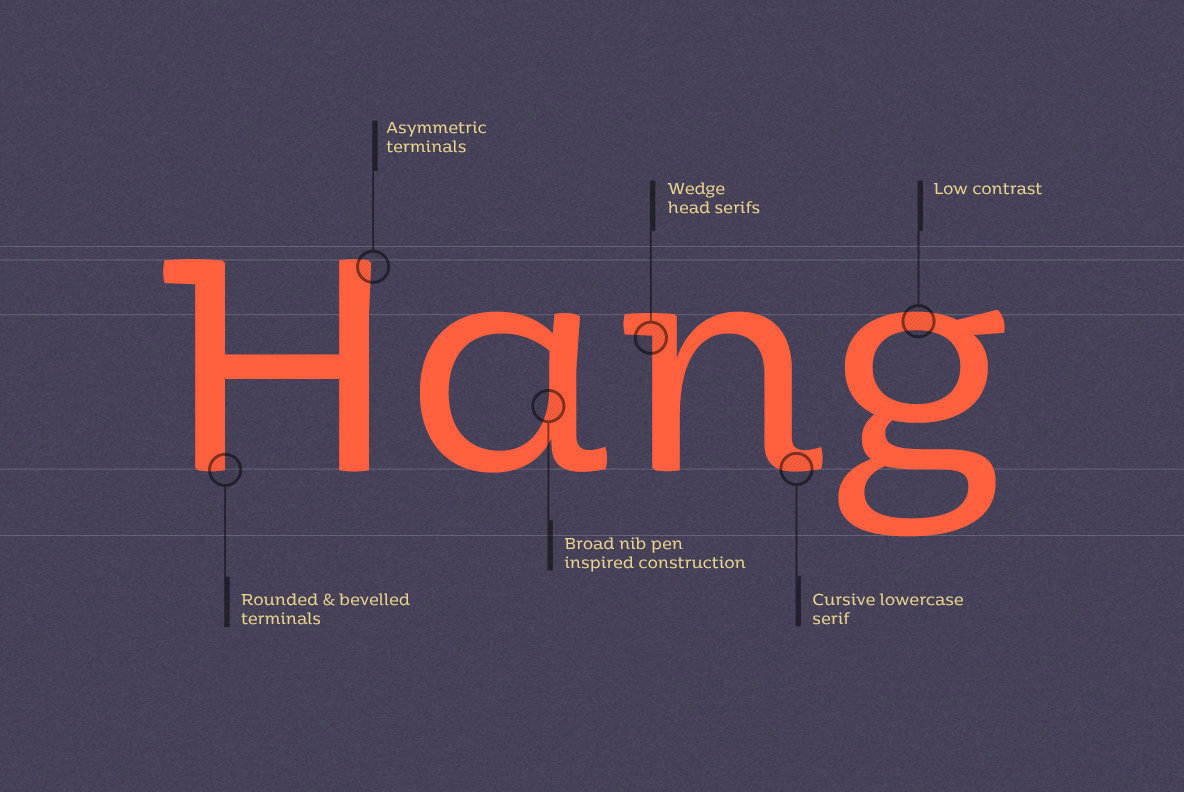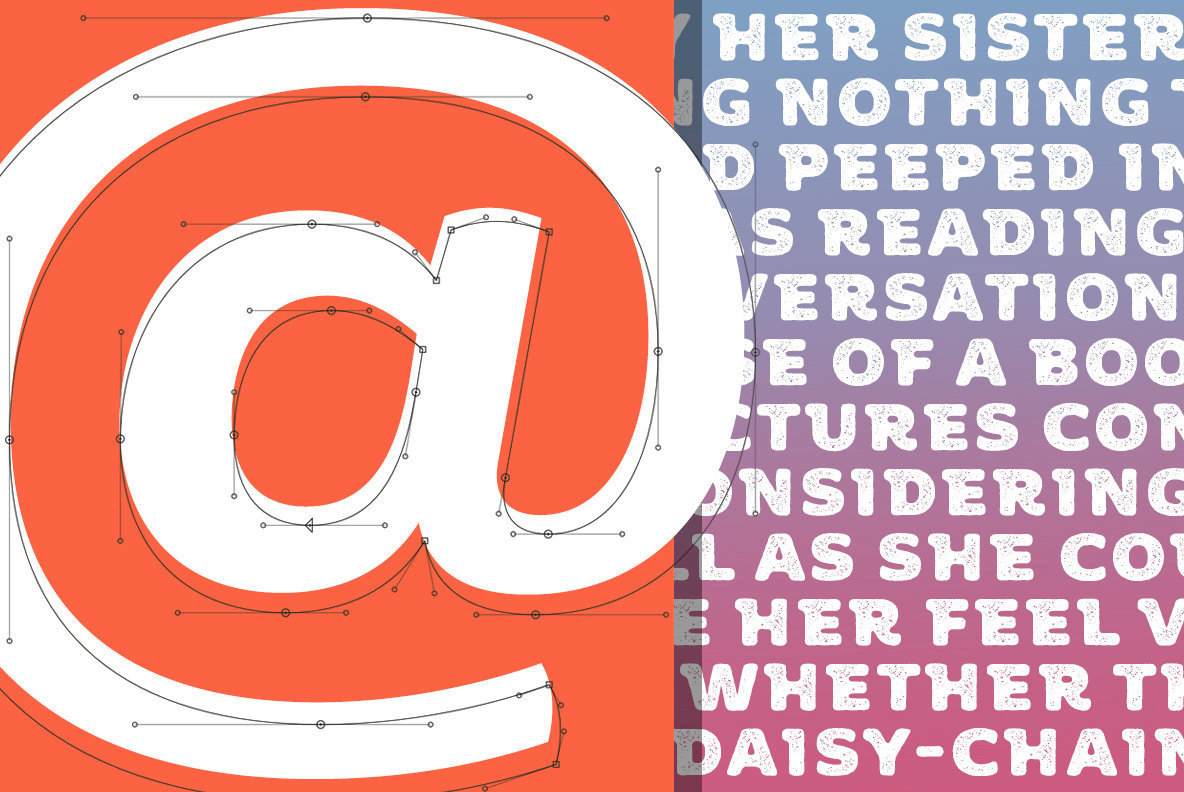
Moreno Font
Meet Moreno – a semi serif typeface full of personality and flavor. A display typeface in its nature Moreno is free and informal yet stable and trustworthy.
Moreno comes with extensive OpenType support - with its more than 15 Opentype features Moreno is giving you a great variety of stylistic alternatives as well as wide range of ligatures, tabular lining numerals, old style numerals, fractions and many more.